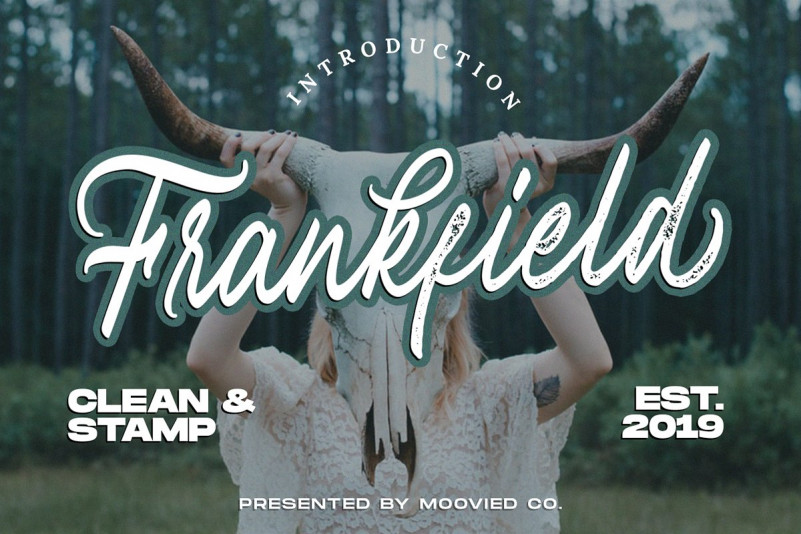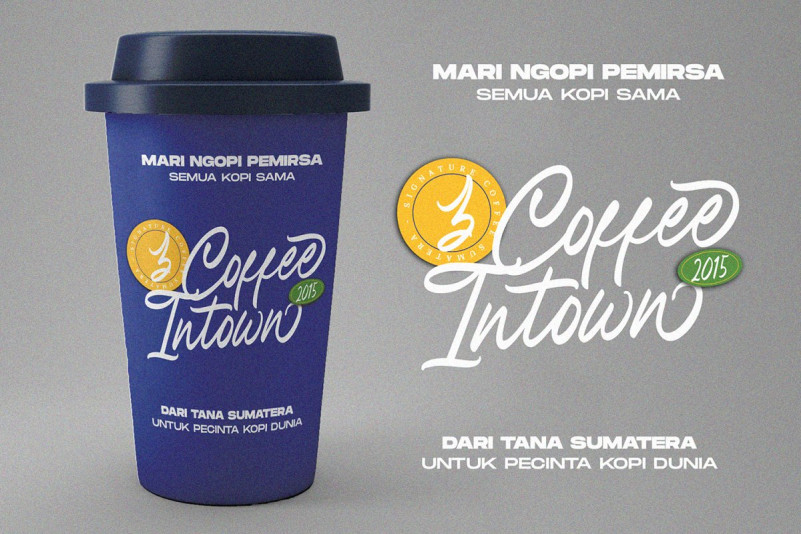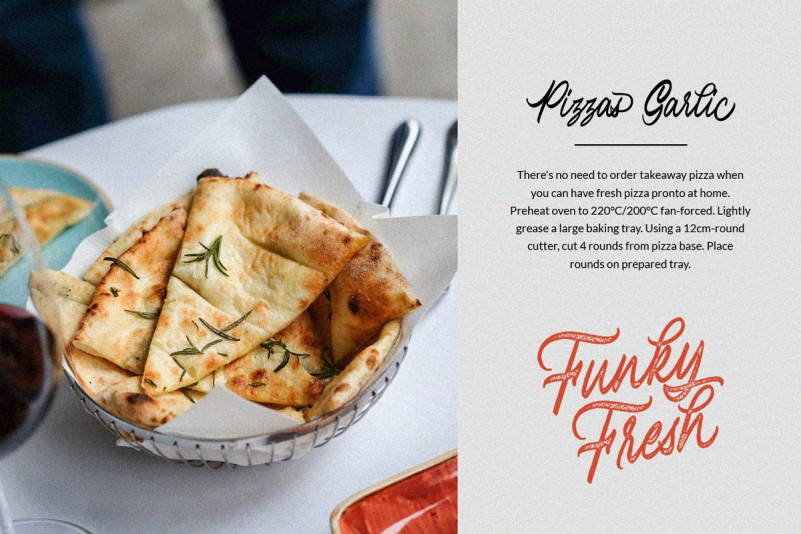
Frankfield Font
Frankfield Script + Stamp Inspired streetwear and vintage made with love handlettering style. Ideal for branding, logos, handwriting quotes, product packaging, headers, posters, merchandise, social media Books / Cover titles, special events, etc.